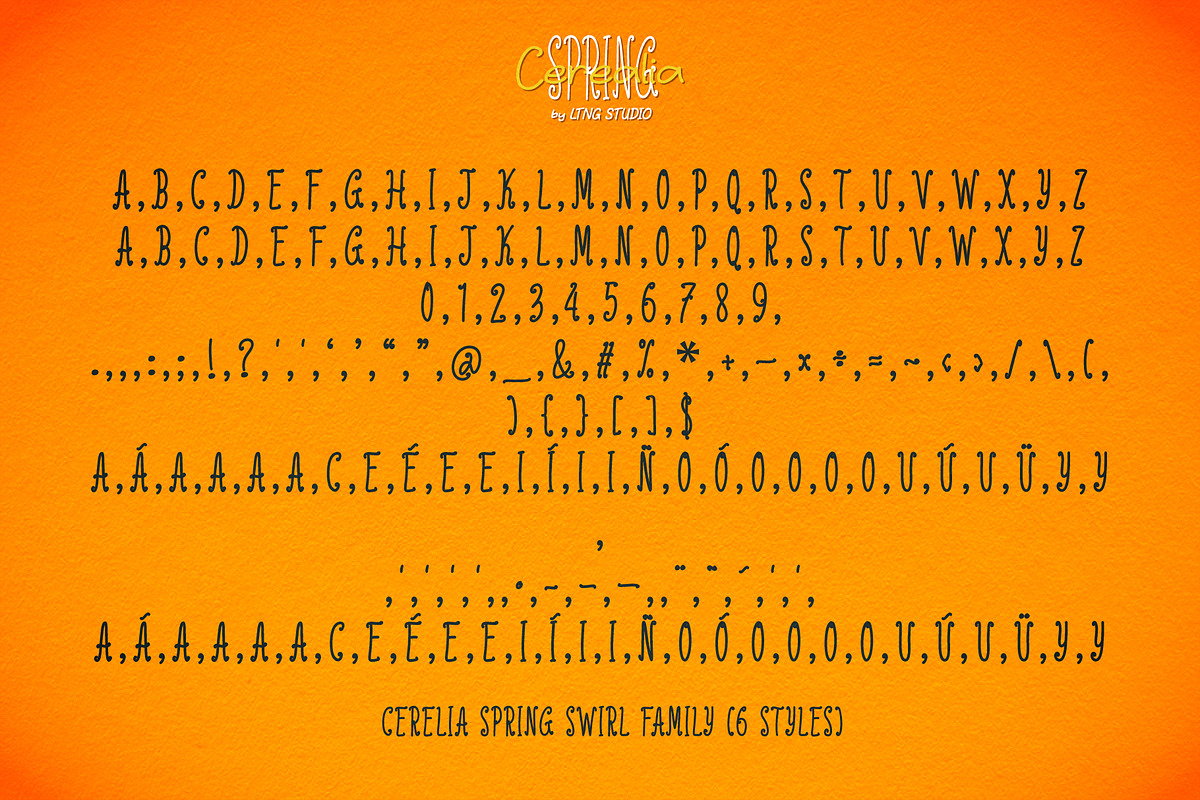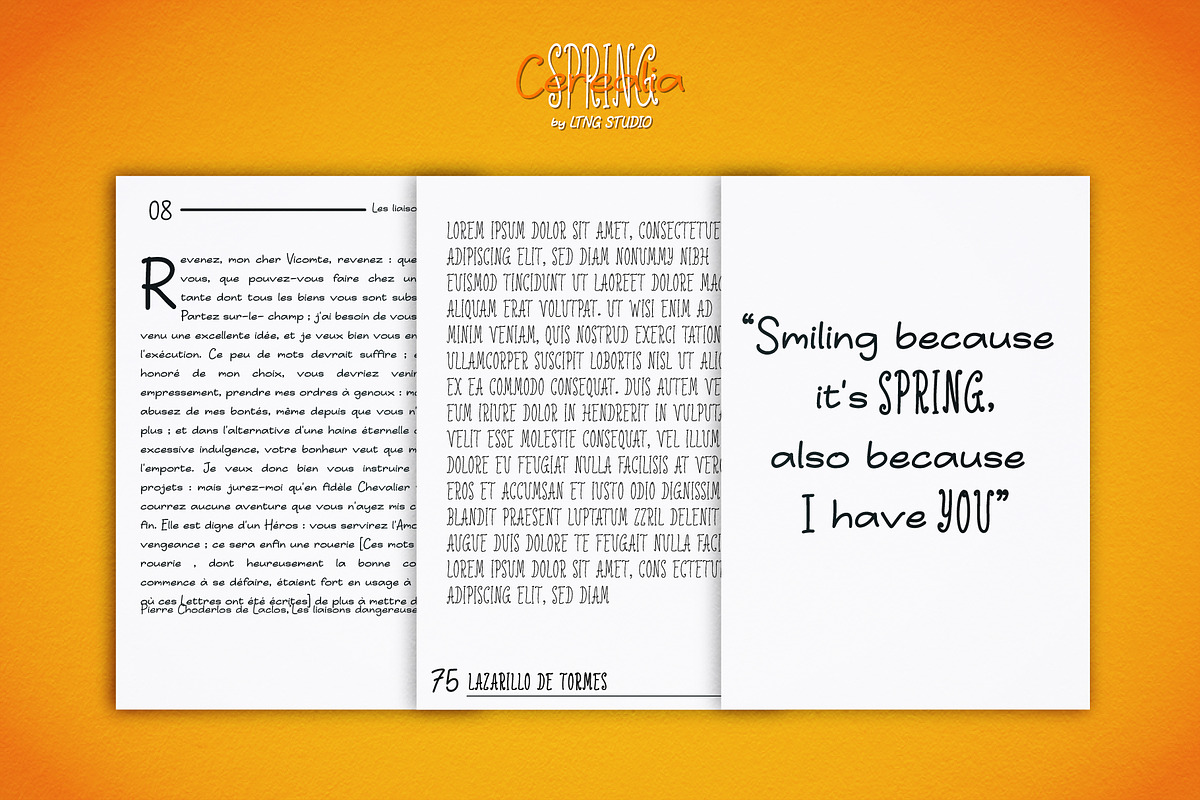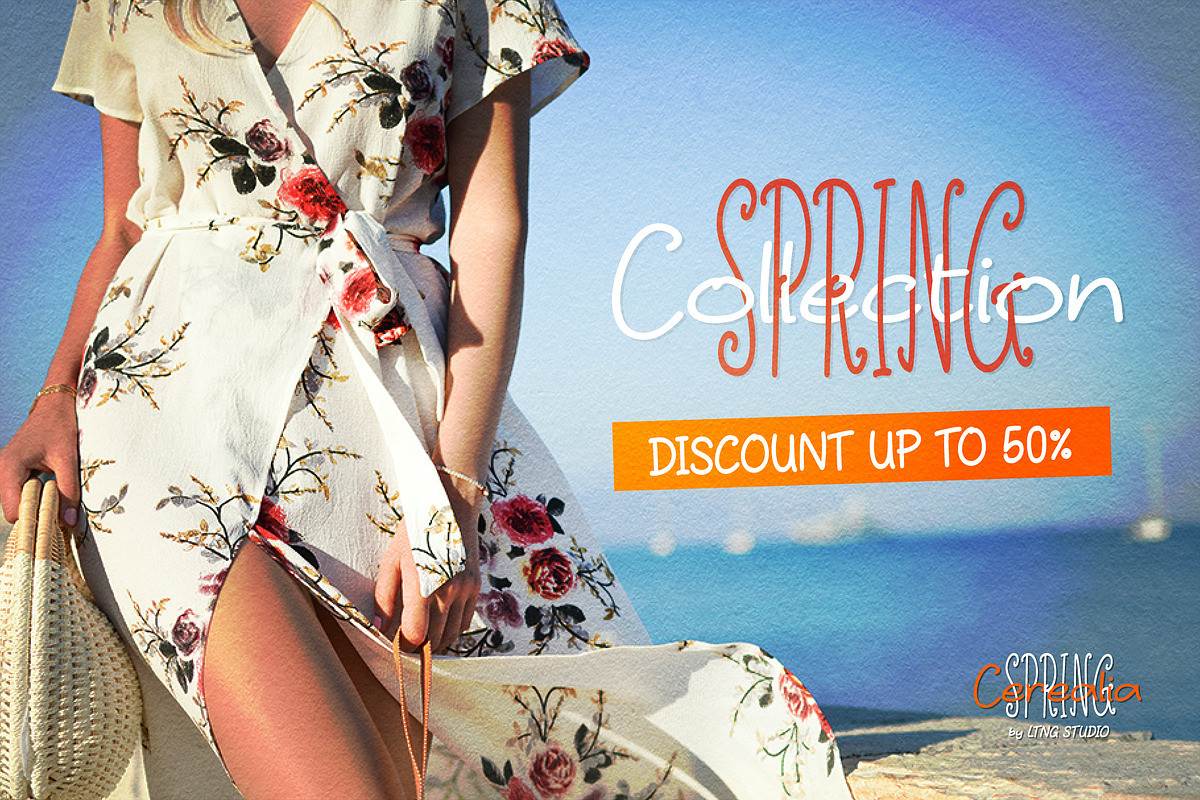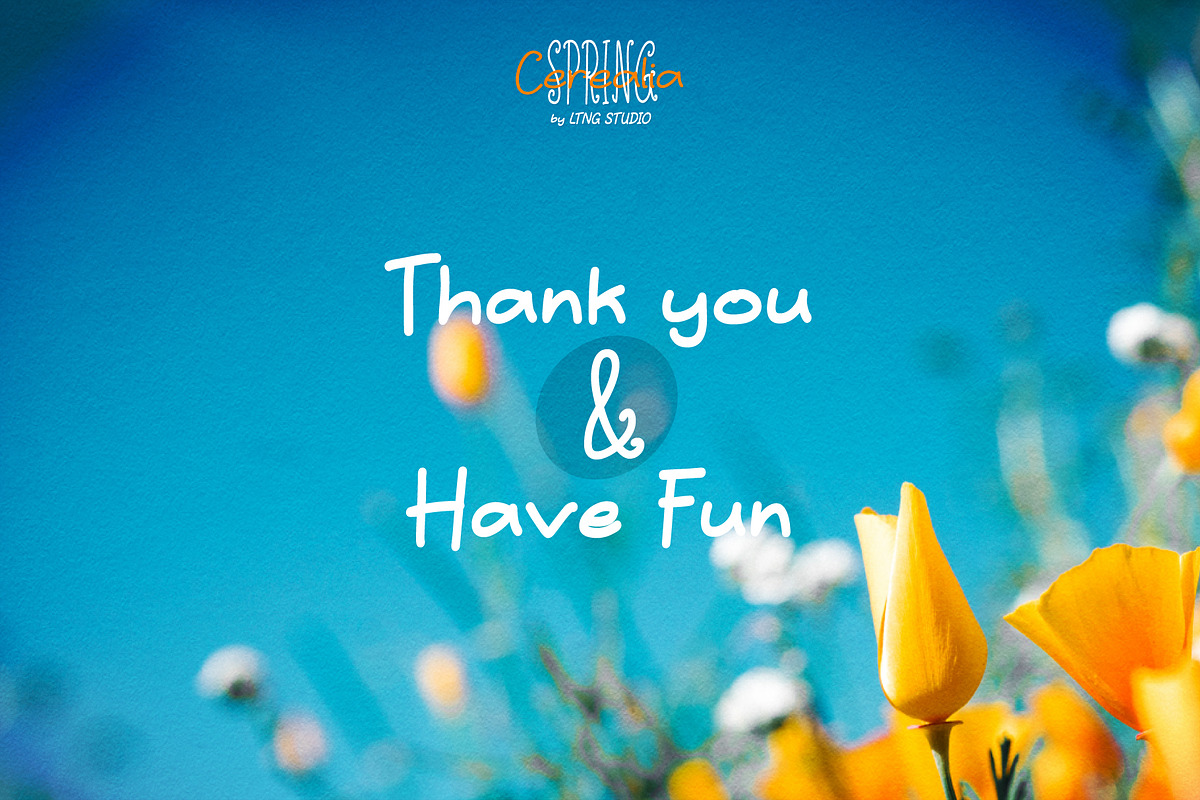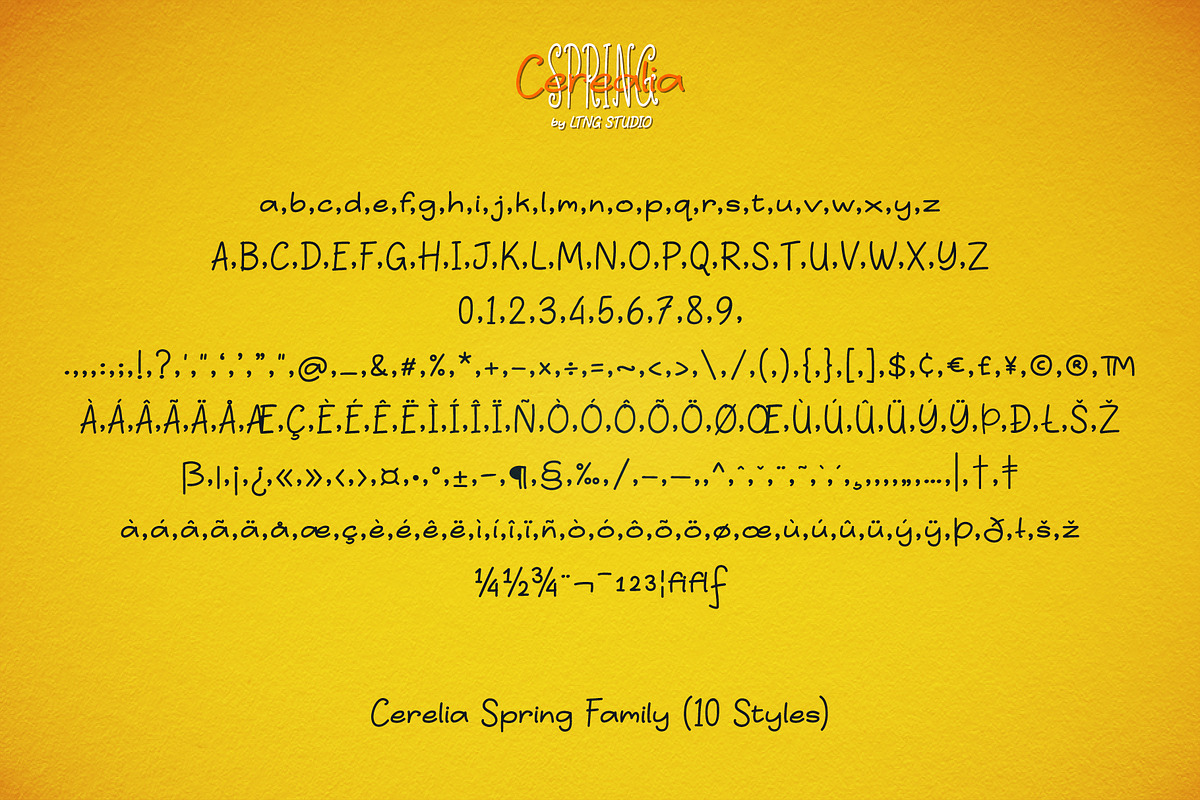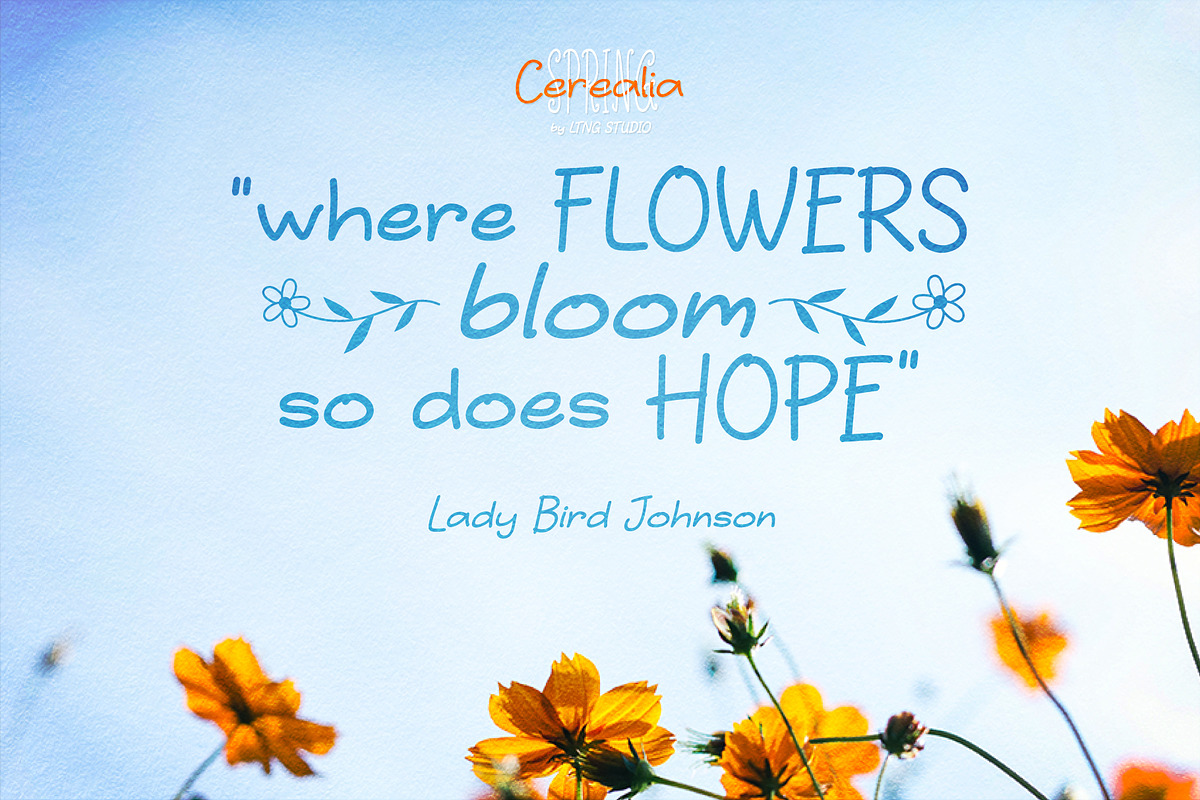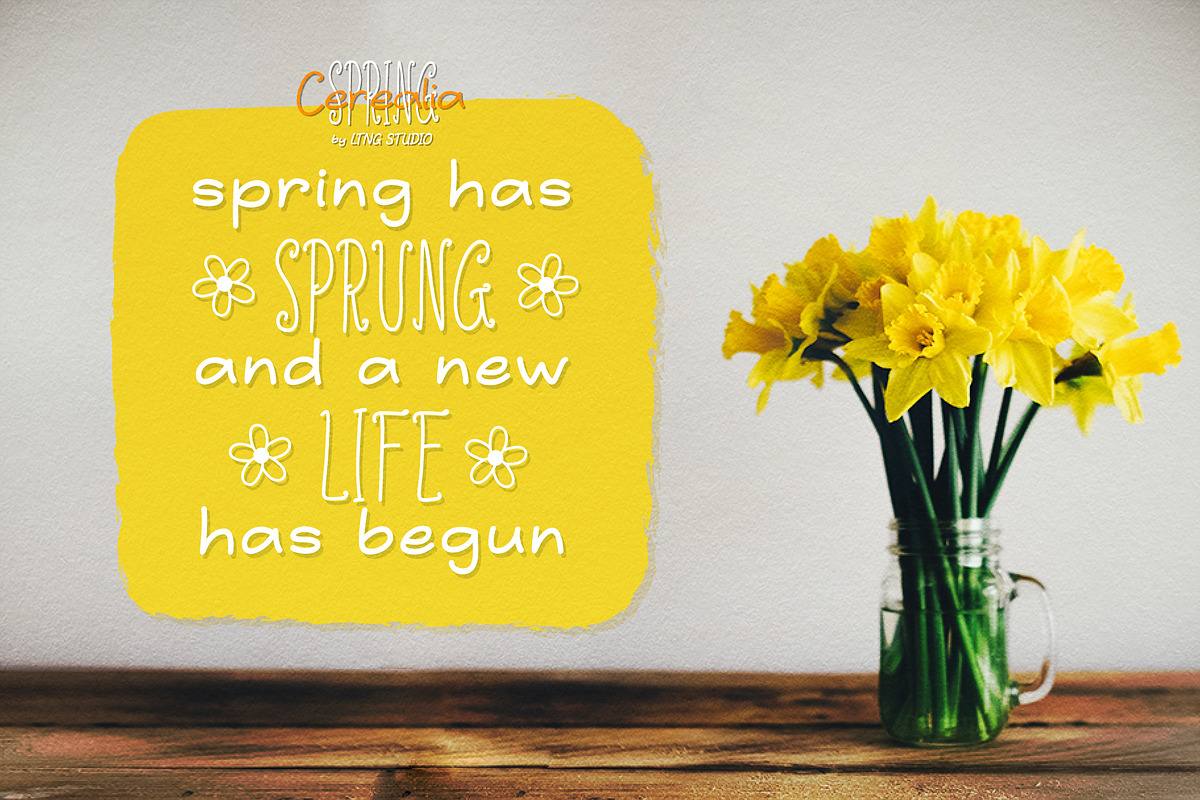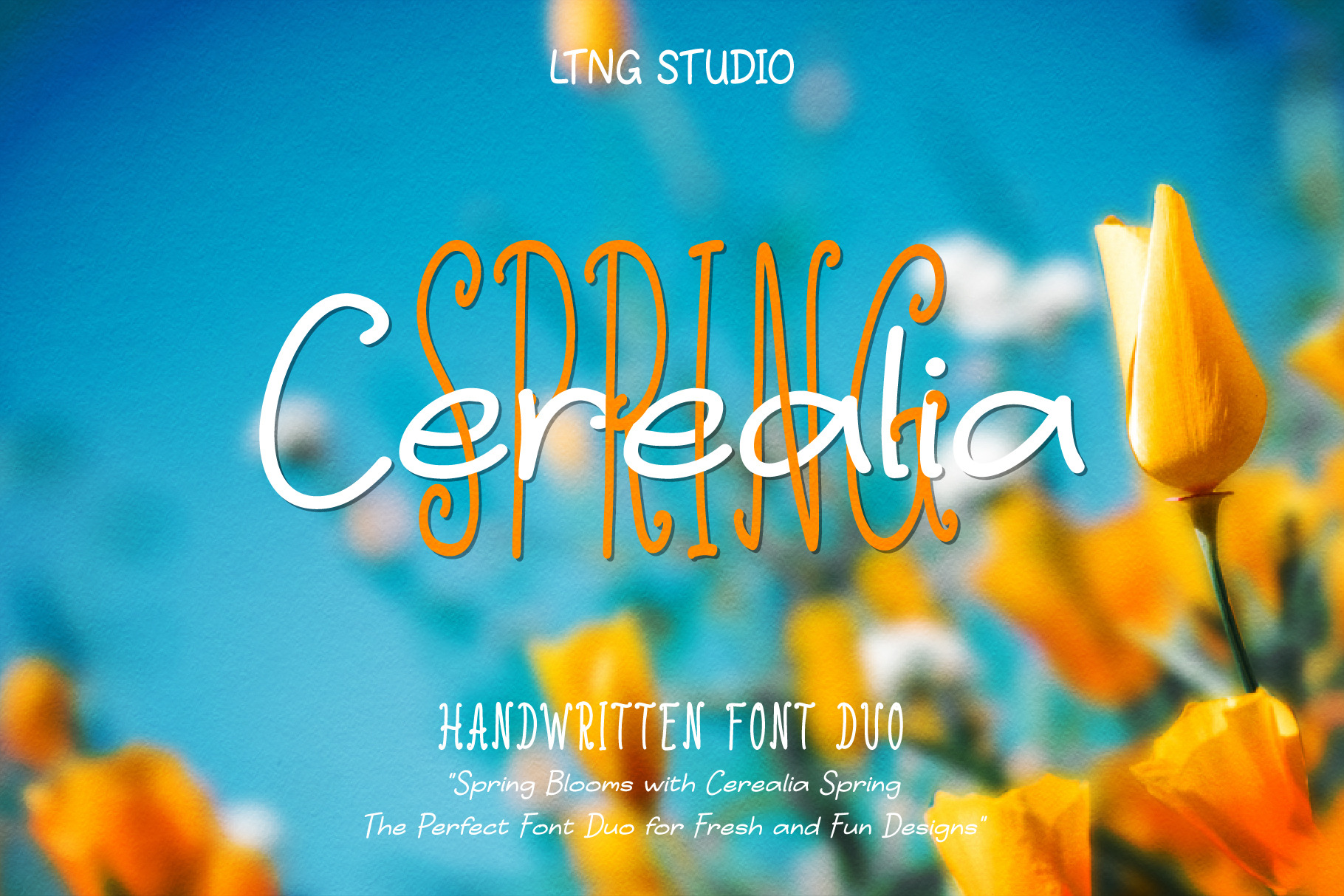
Cerealia Spring Handwritten Font Duo
Introducing Cerealia Spring, a charming and playful font duo that will add a touch of whimsy to your designs. This font duo includes a cute-simple-clean handwritten font and display condensed swirl hand written font, allowing for endless creative possibilities. With its lively and whimsical aesthetic, Cerealia Spring is the perfect font duo for all your spring-themed projects. Its simple, cute, clean, and swirly design makes it ideal for creating cheerful invitations, festive greeting cards, and playful social media graphics. The handwritten script captures the essence of spring with its flowy and natural curves, while the condensed hand written font adds a touch of sophistication and clarity. Together, they create a harmonious balance that will elevate any design project.